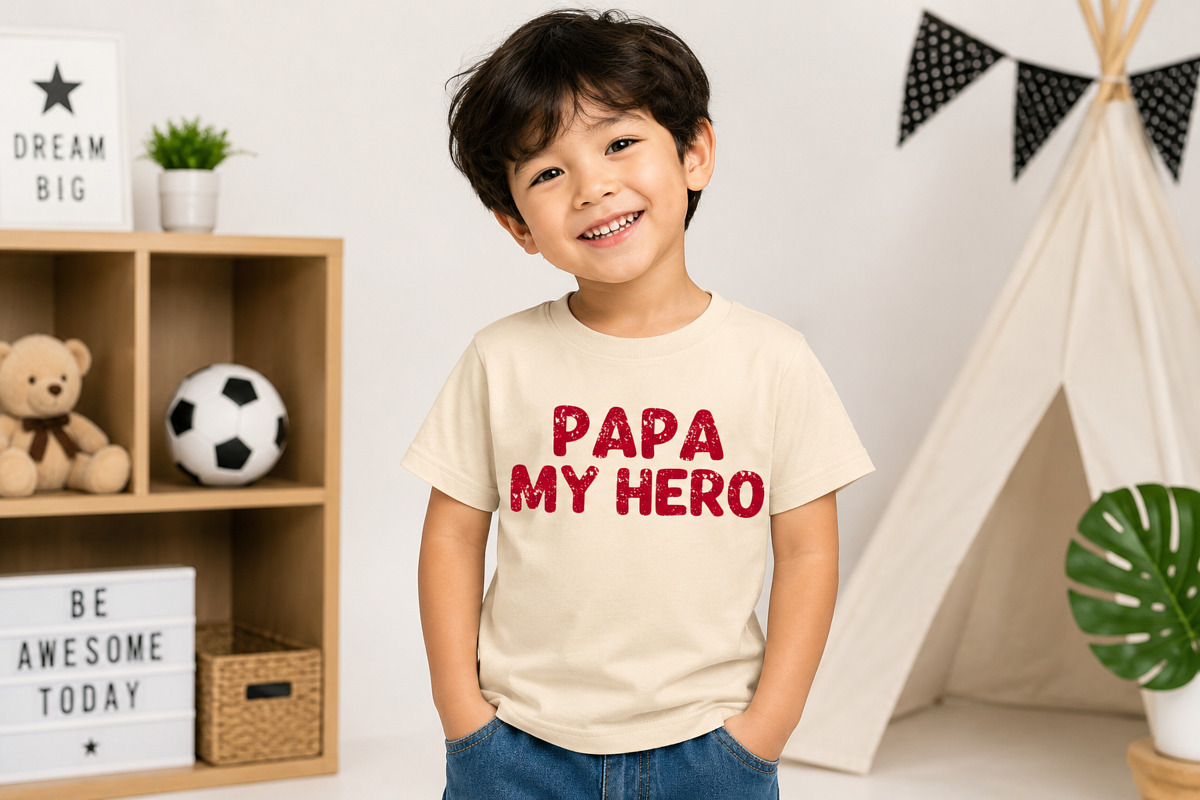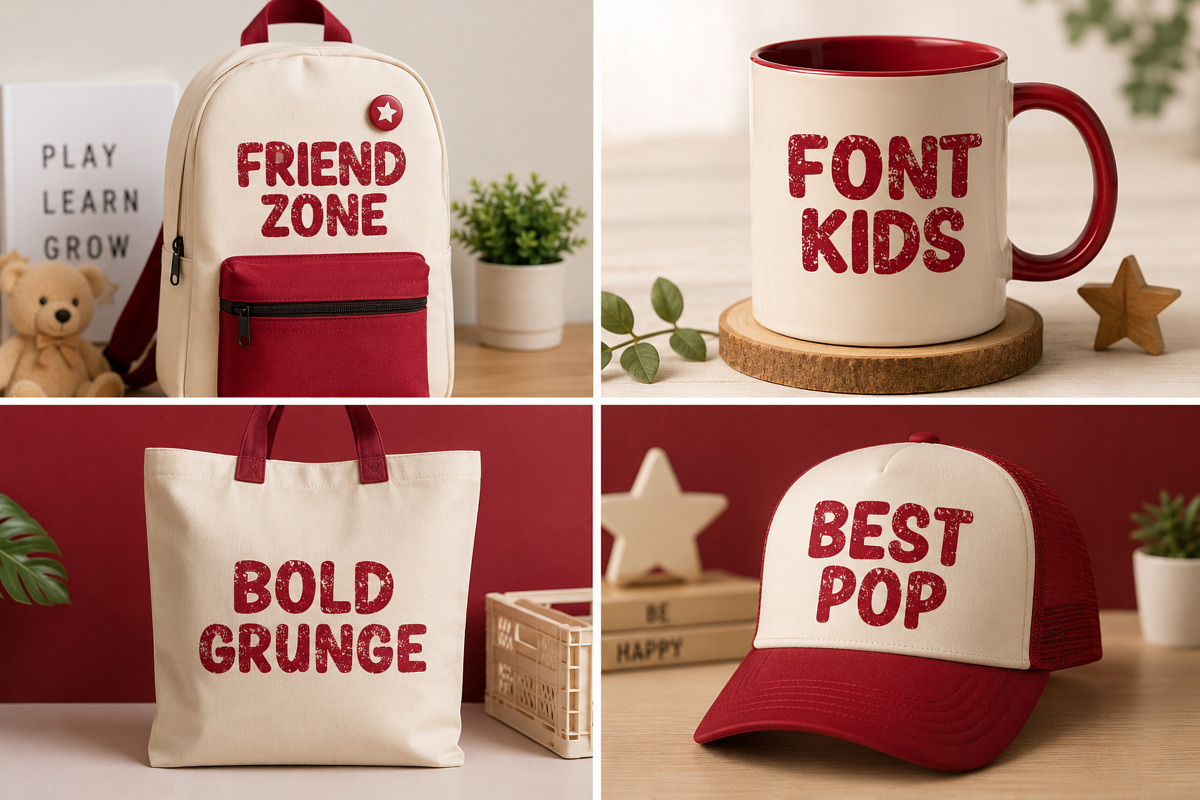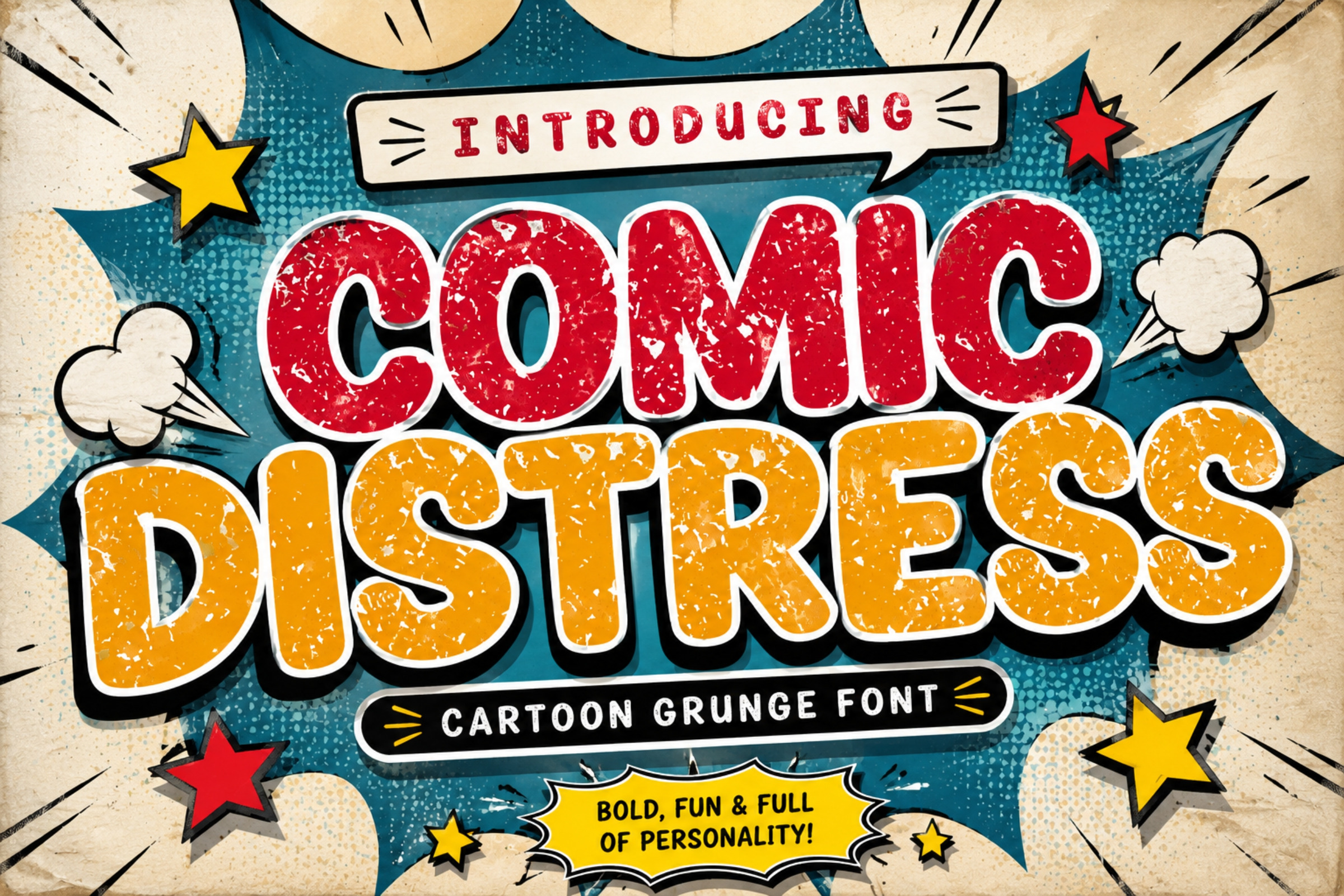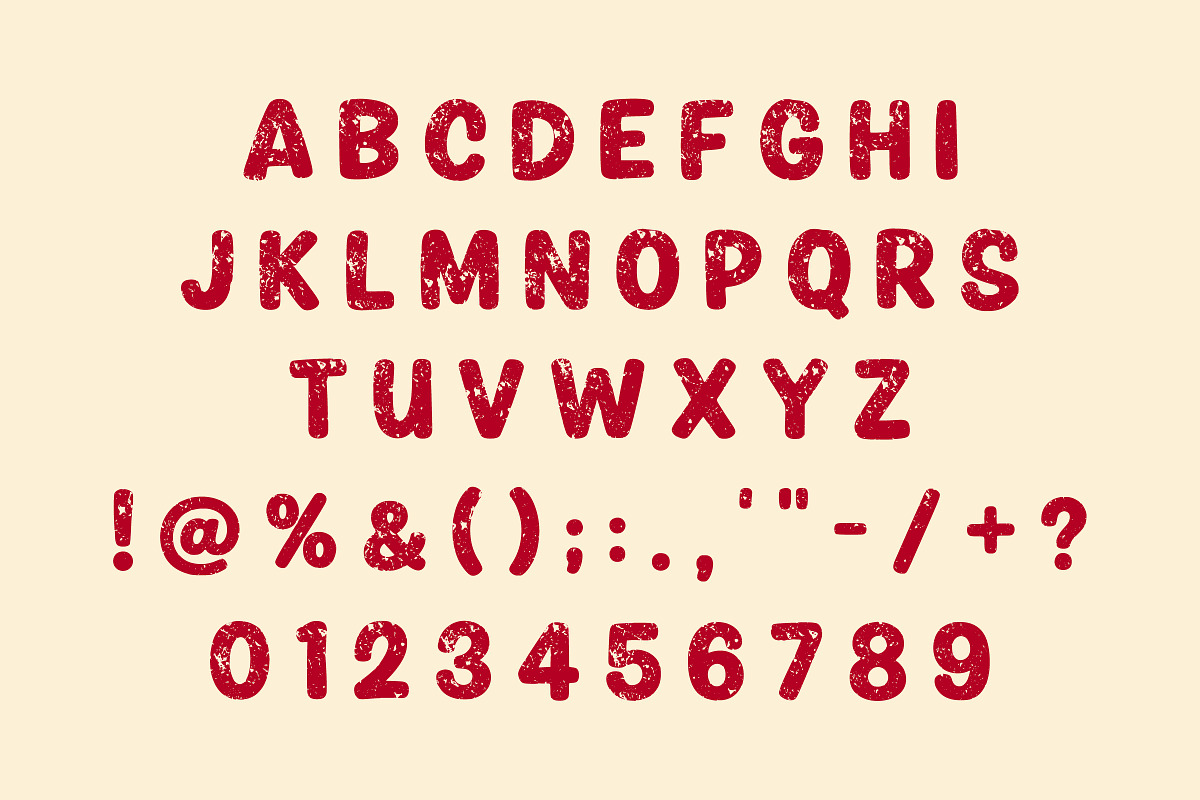
Comic Distress – Cartoon Grunge Font
Comic Distress is a bold cartoon display font designed to bring energy, personality, and a touch of vintage comic-book style to your creative projects. Its chunky characters, rough distressed texture, strong outlines, and playful appearance make it ideal for designs that need to stand out.
Perfect for posters, T-shirts, logos, stickers, packaging, social media graphics, children's designs, sports graphics, comics, merchandise, and retro branding.
Bold cartoon display style
Distressed / grunge texture
Playful comic-inspired appearance
Strong and eye-catching letterforms
Great for headlines and short phrases
Perfect for vintage and retro designs
Suitable for print and digital projects
Works well for branding and merchandise
Ideal For: T-shirts, posters, logos, stickers, labels, packaging, badges, children's products, comic designs, sports apparel, advertisements, social media graphics, invitations, album covers, and merchandise.